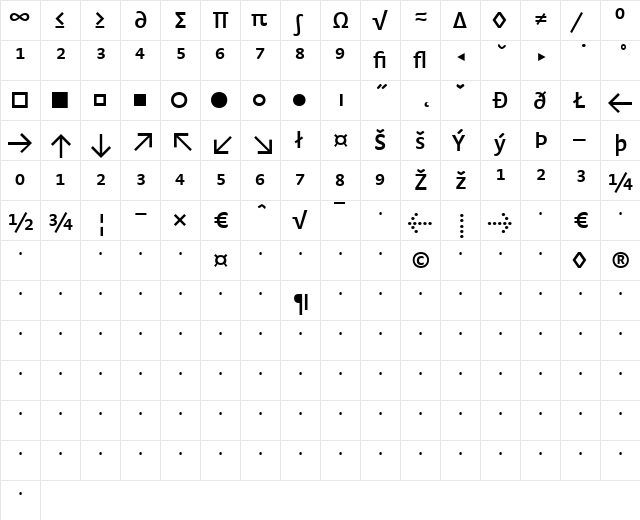
StradaExp-SemiBold Regular
| Designer | Albert Pinggera |
Design Context for StradaExp-SemiBold Typeface
StradaExp-SemiBold takes a measured approach to typography — its balanced proportions and neutral character make it a reliable workhorse for both digital and print work. The heavy weight commands attention and anchors typographic hierarchies.